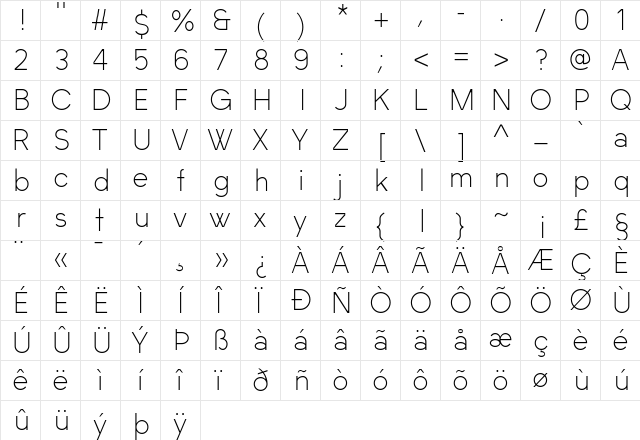
Black Label Light
| Foundry | GOICHA |
| Designer | GOICHA |
Design Context for Black Label Typeface
Black Label takes a measured approach to typography — its balanced proportions and neutral character make it a reliable workhorse for both digital and print work. Its slender proportions lend an understated elegance to any composition.